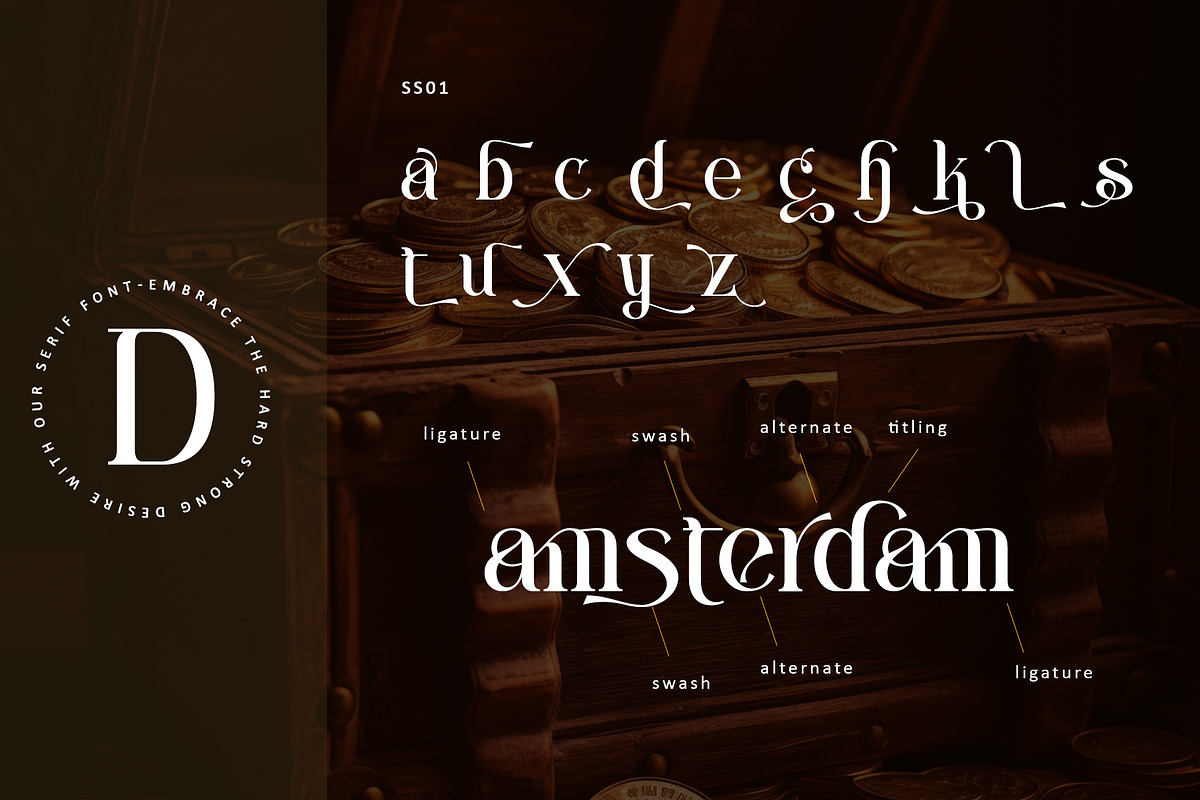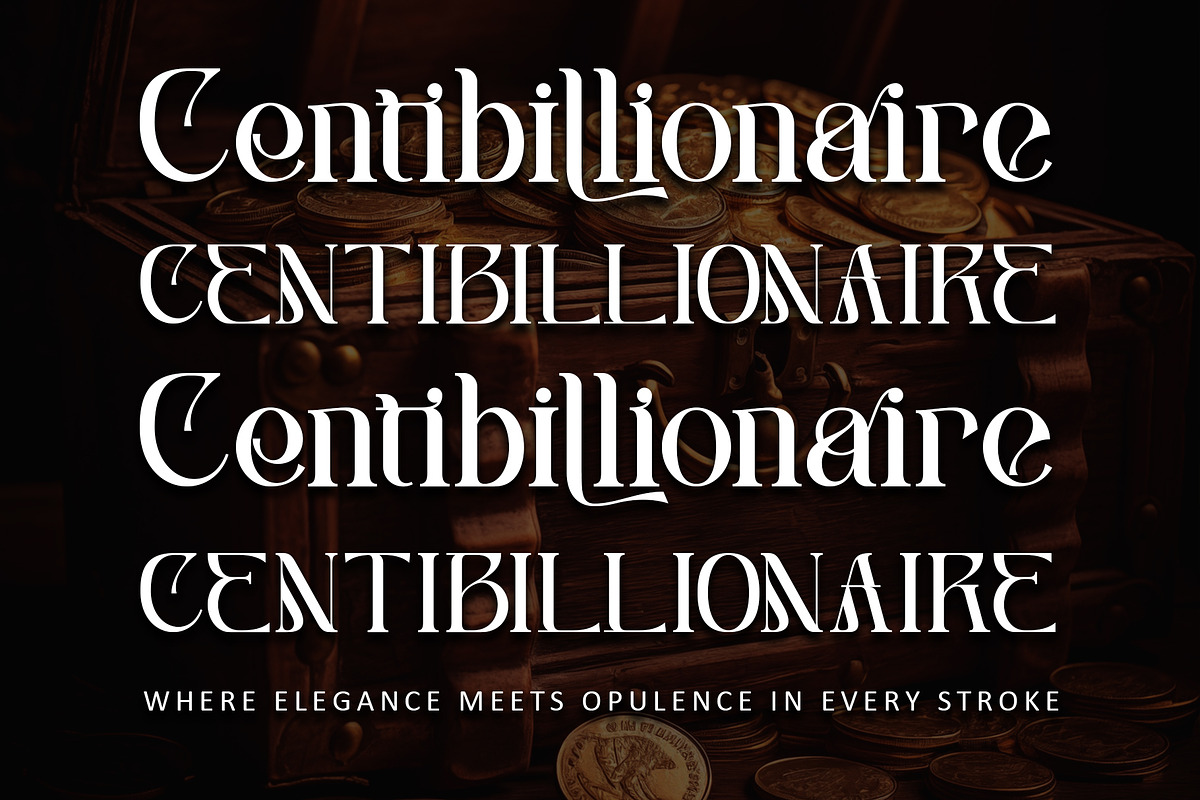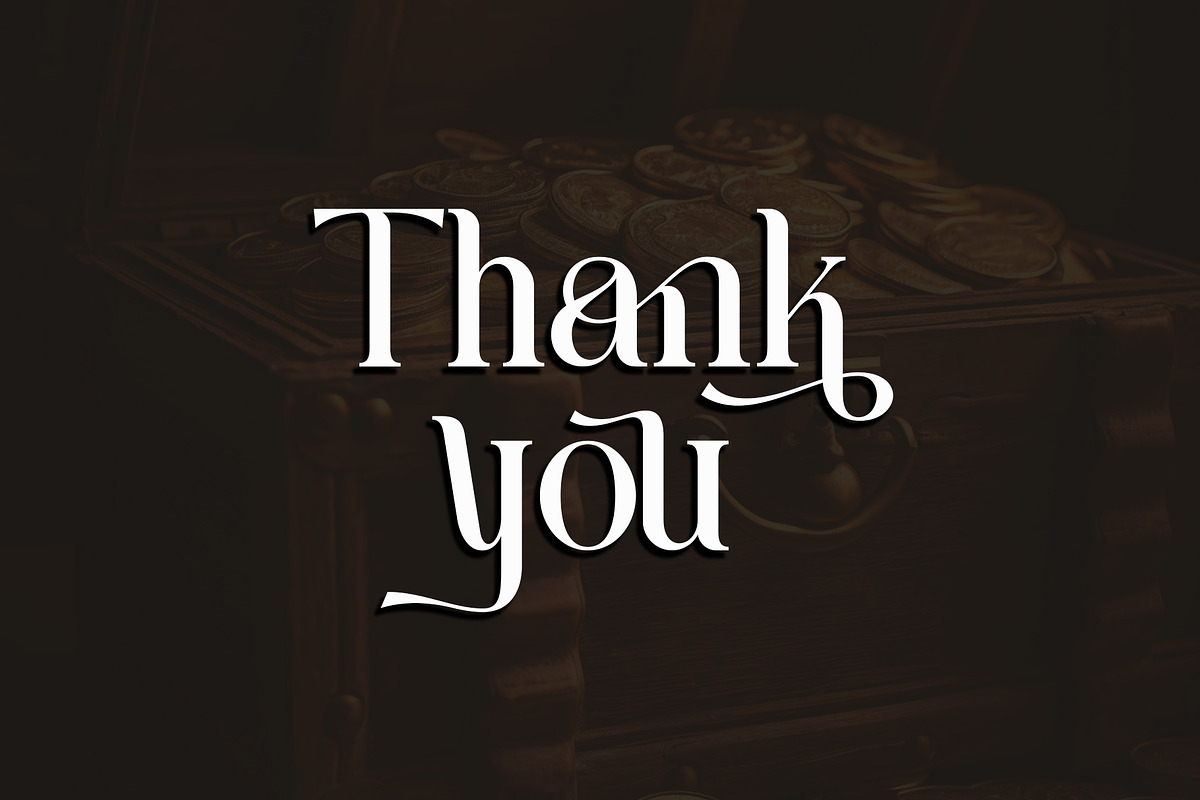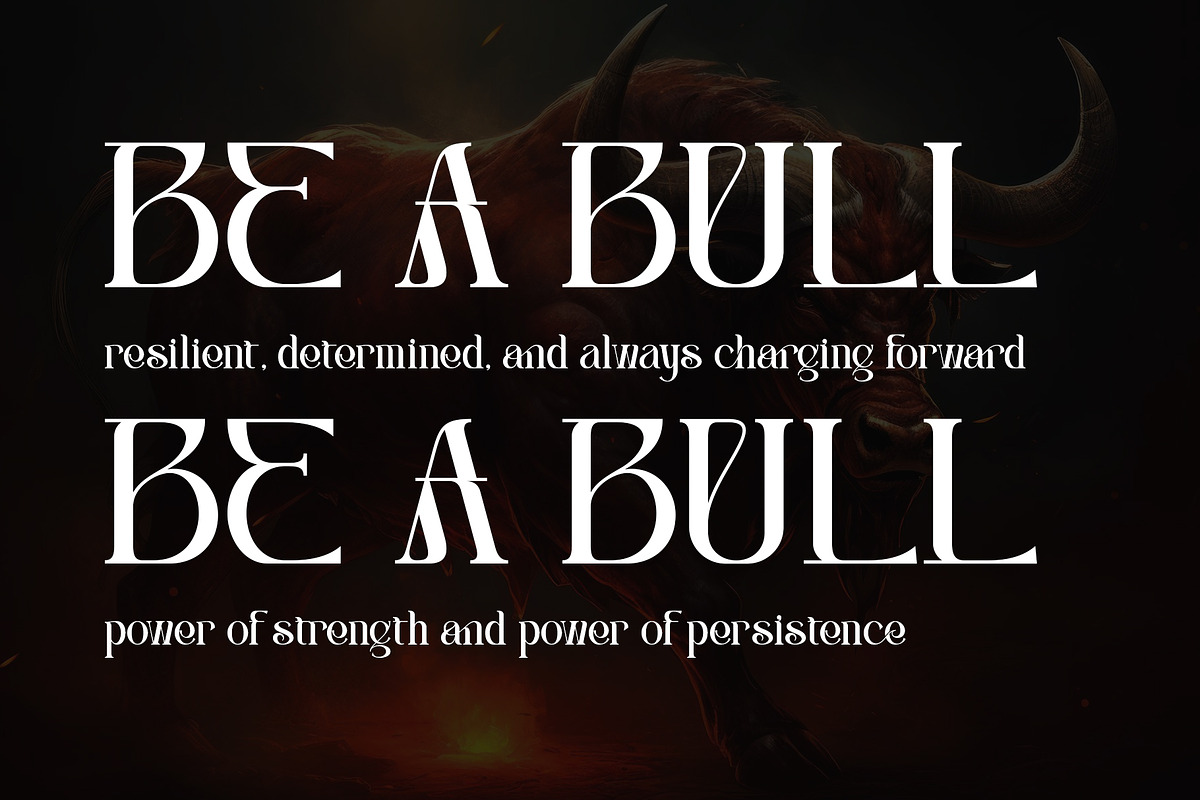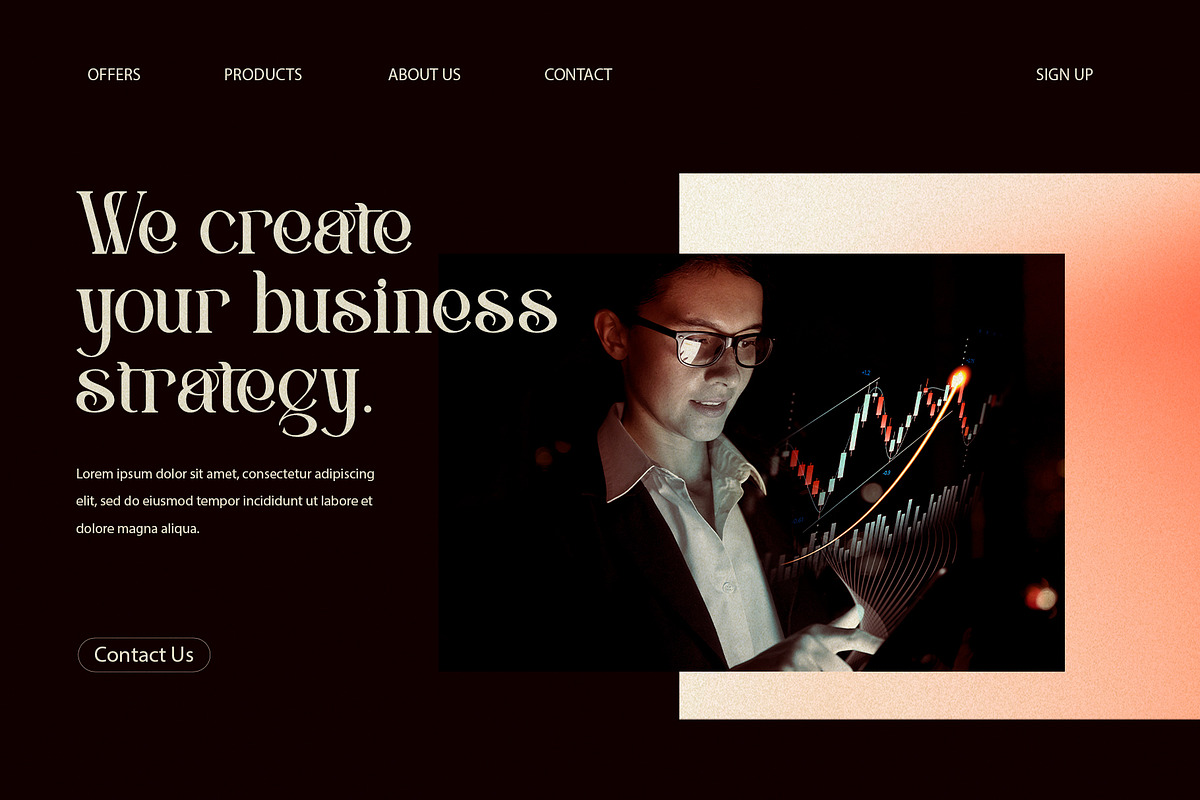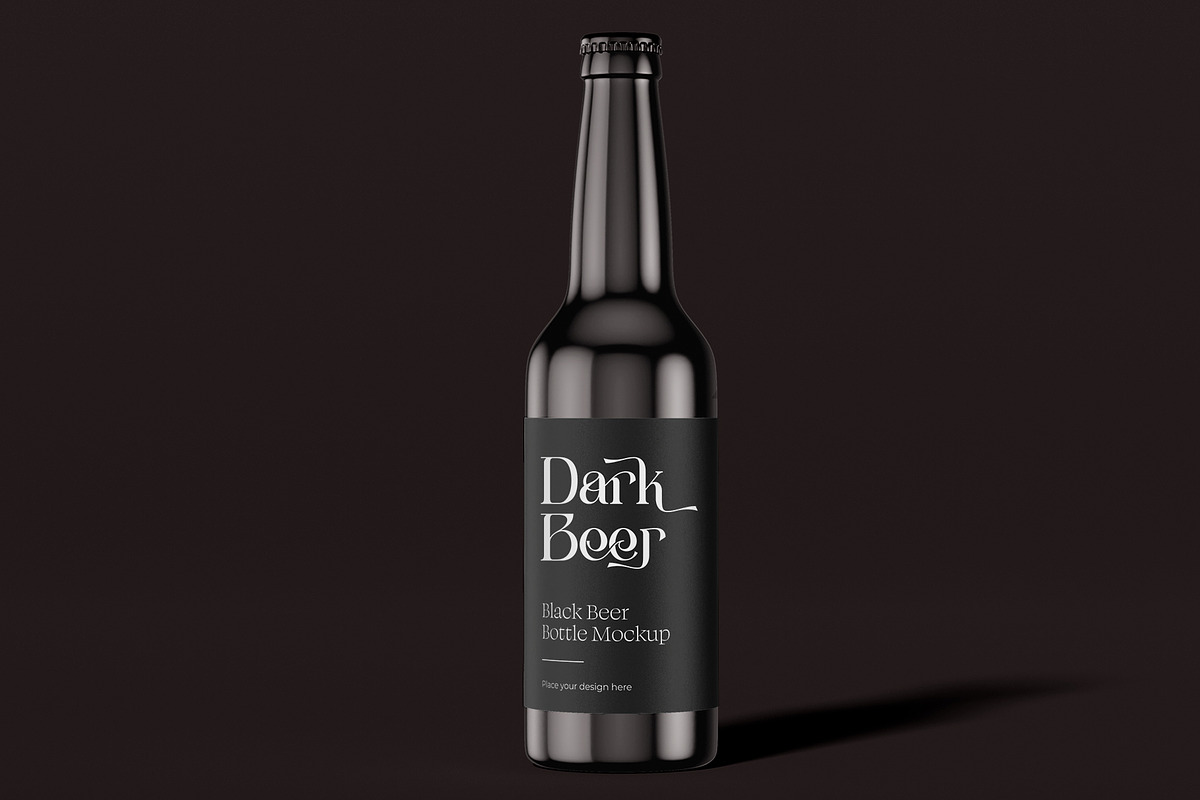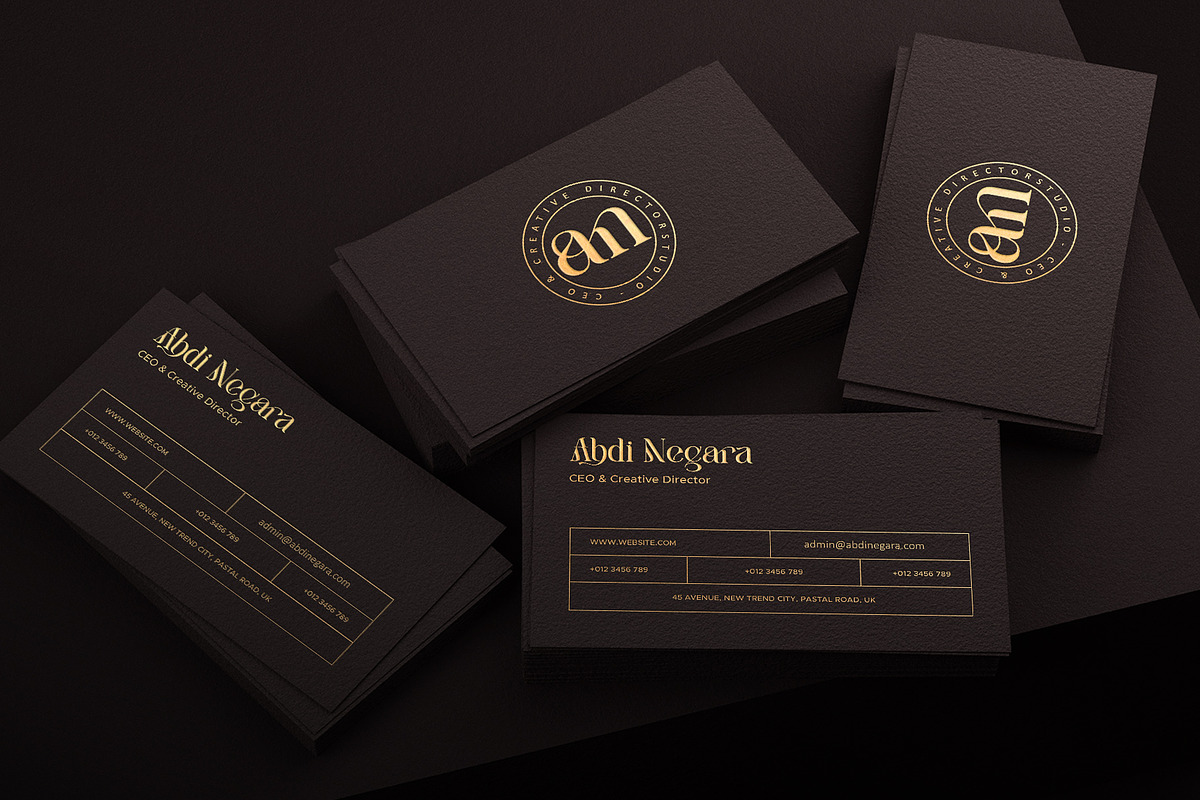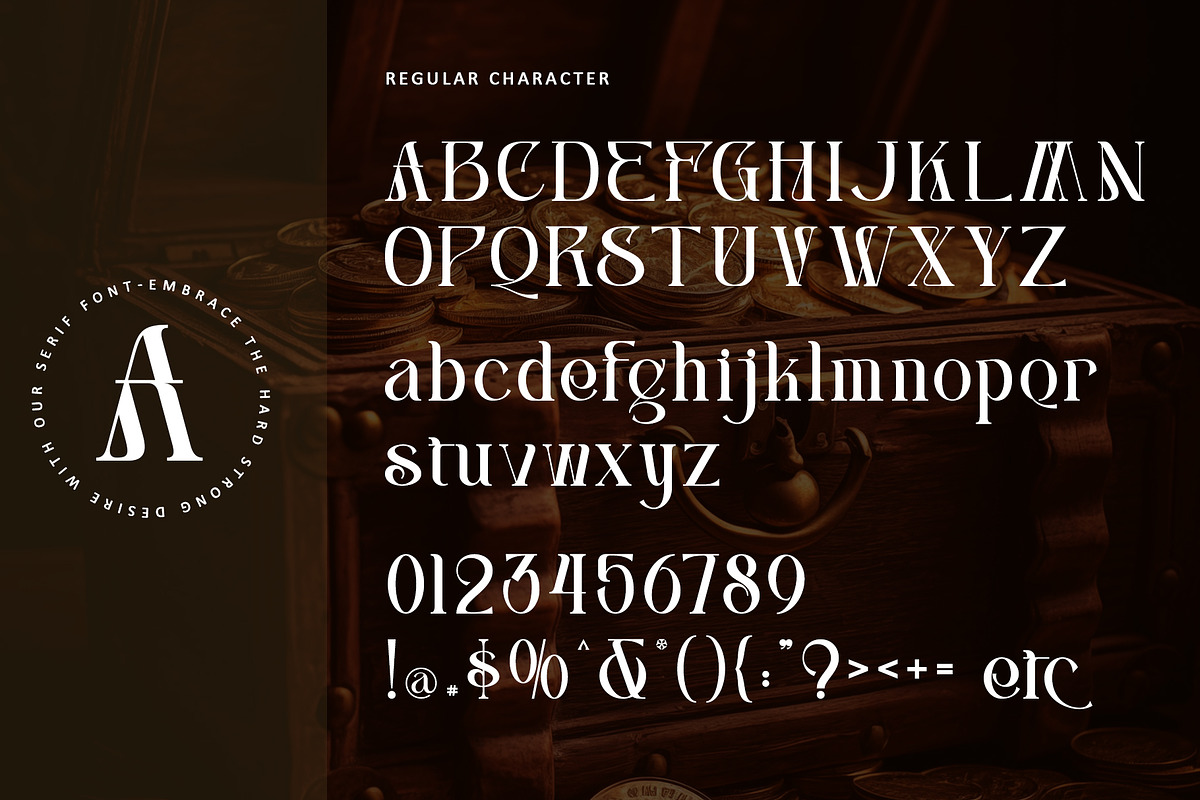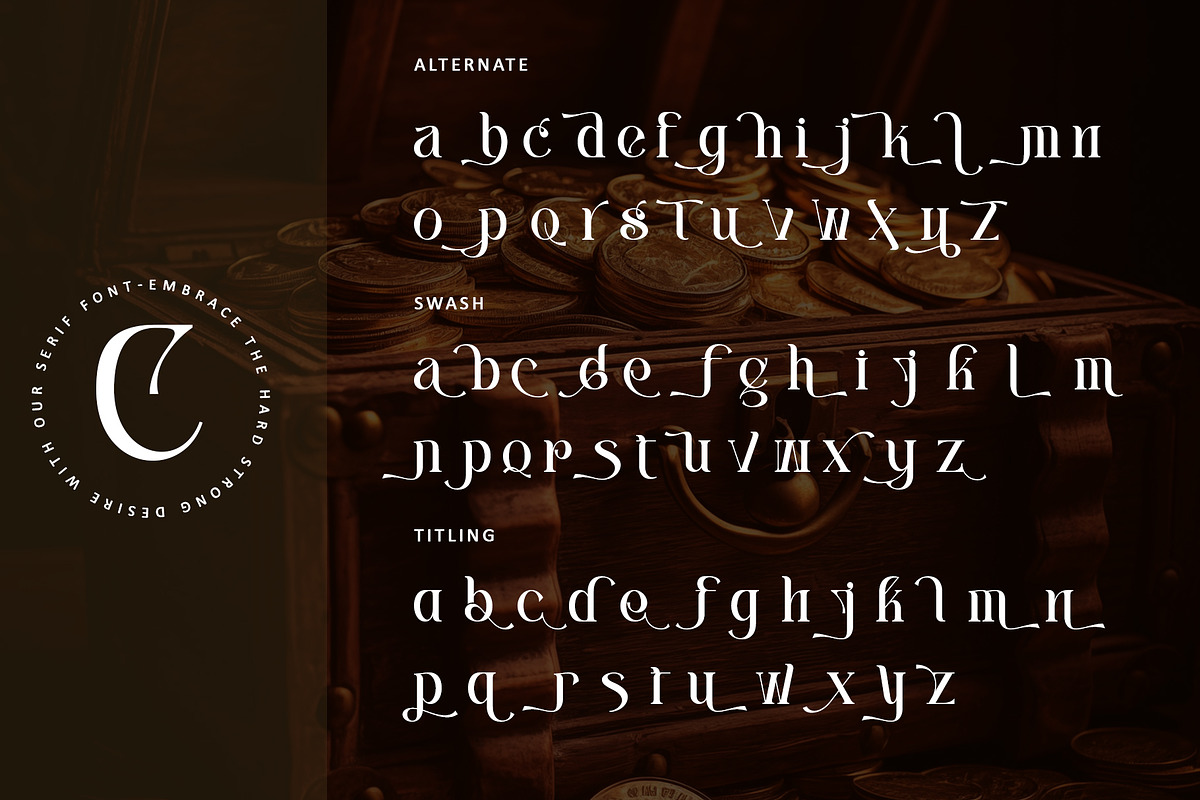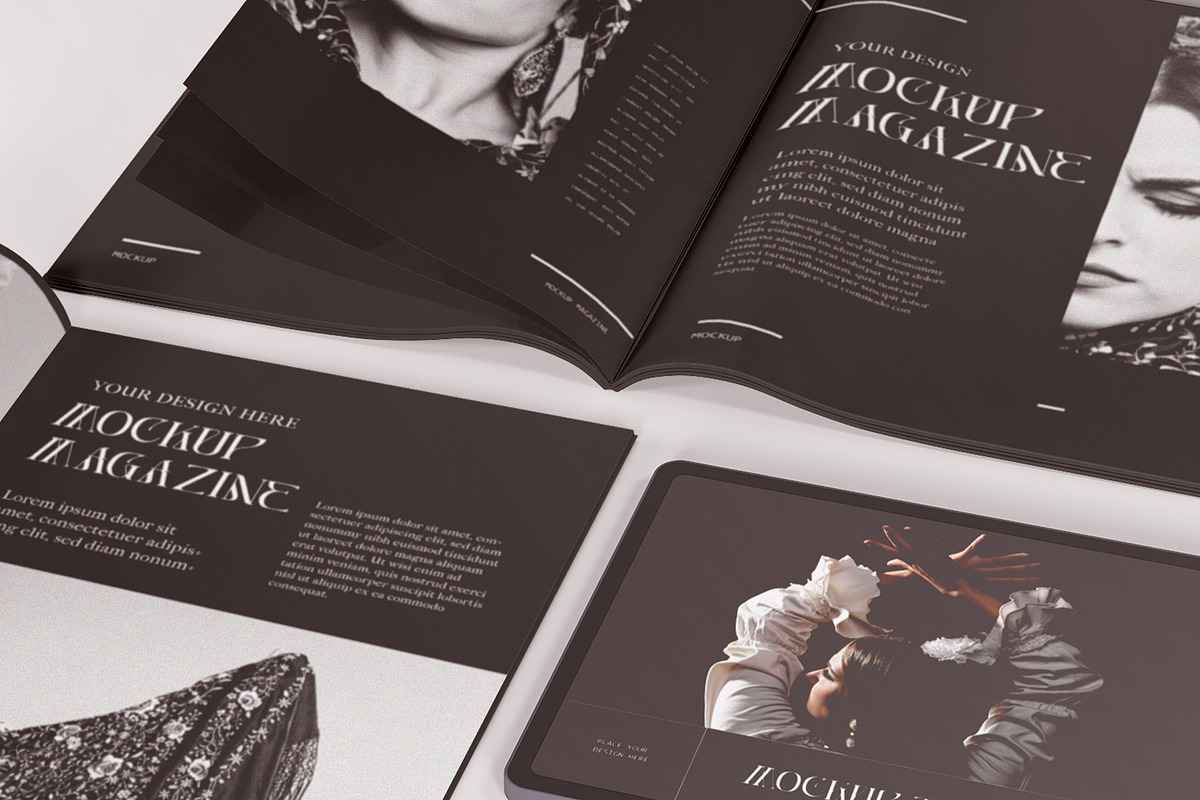
Centibillionaire
Immerse yourself in typographic opulence with "Centibillionaire," a mesmerizing serif font that effortlessly marries bold elegance with distinctive character forms. Exquisitely crafted for a spectrum of design ventures, from adventurous product packaging to dynamic branding, this font's PUA encoding guarantees seamless access to a plethora of unique glyphs and swashes. Brace yourself for extraordinary results as you infuse a touch of lavishness into your creative pursuits with the daring spirit of "Centibillionaire."
- Support multilingual; ä ö ü Ä Ö Ü ß ¿ ¡
- lowercase and uppercase letters
- Alternate, swash, titling, ss01 & ligature